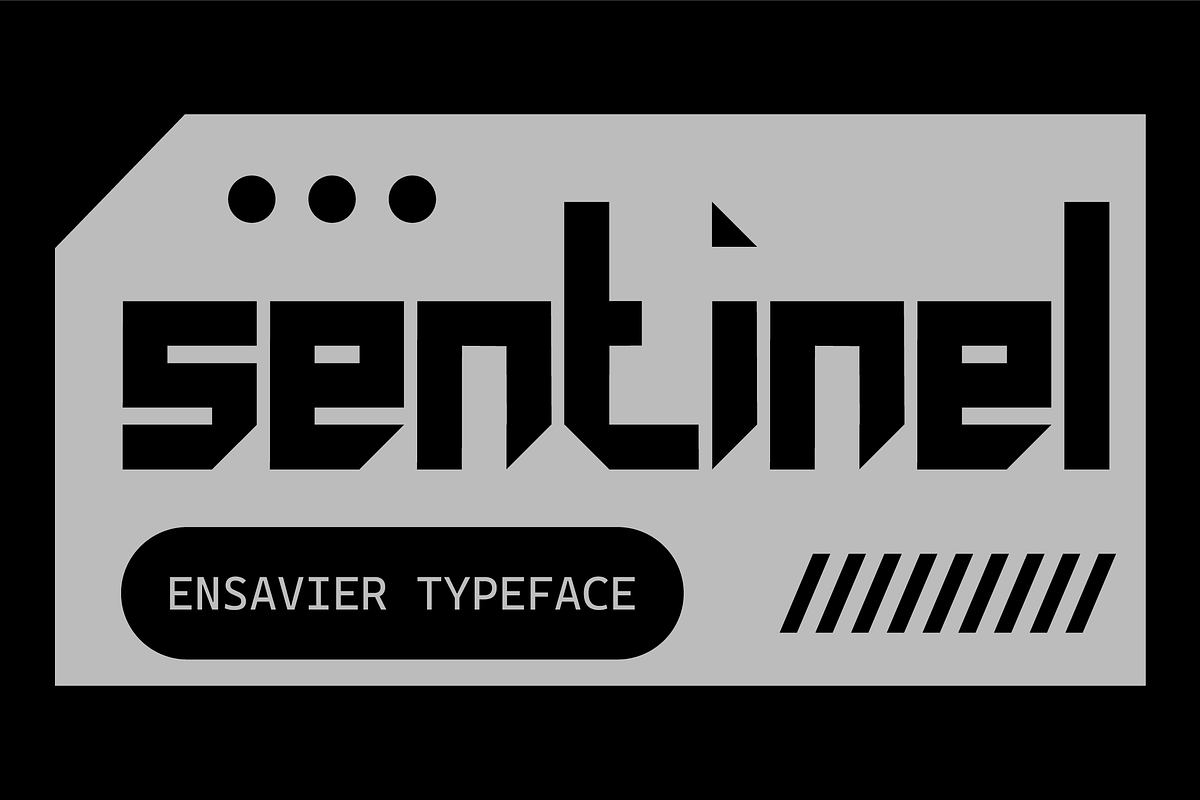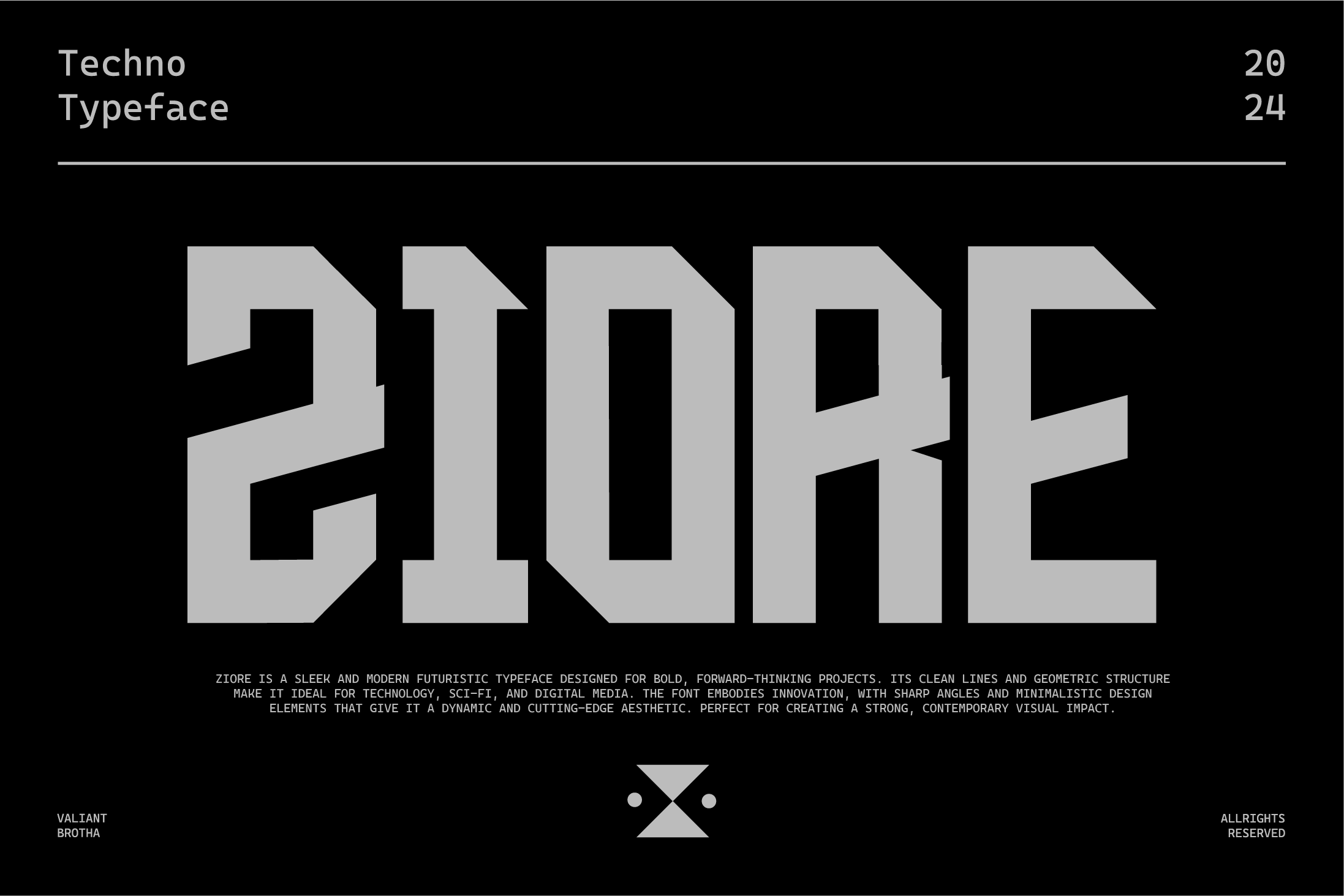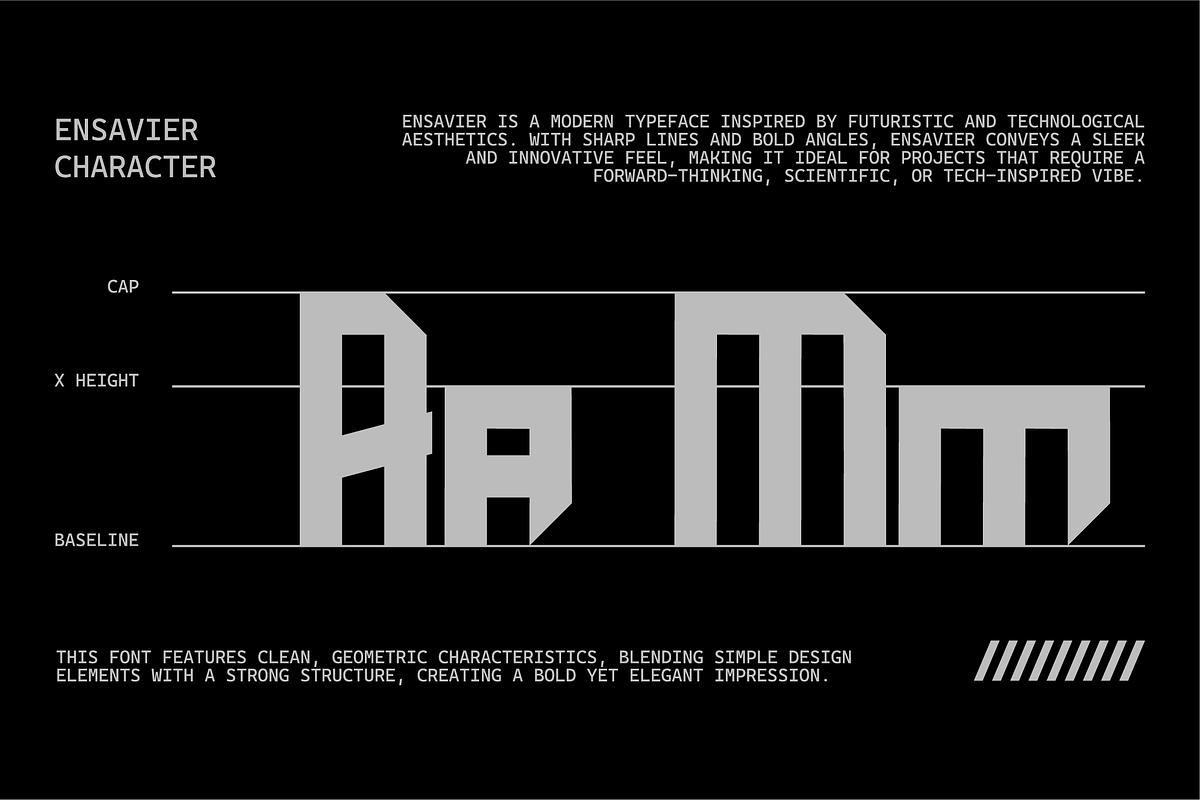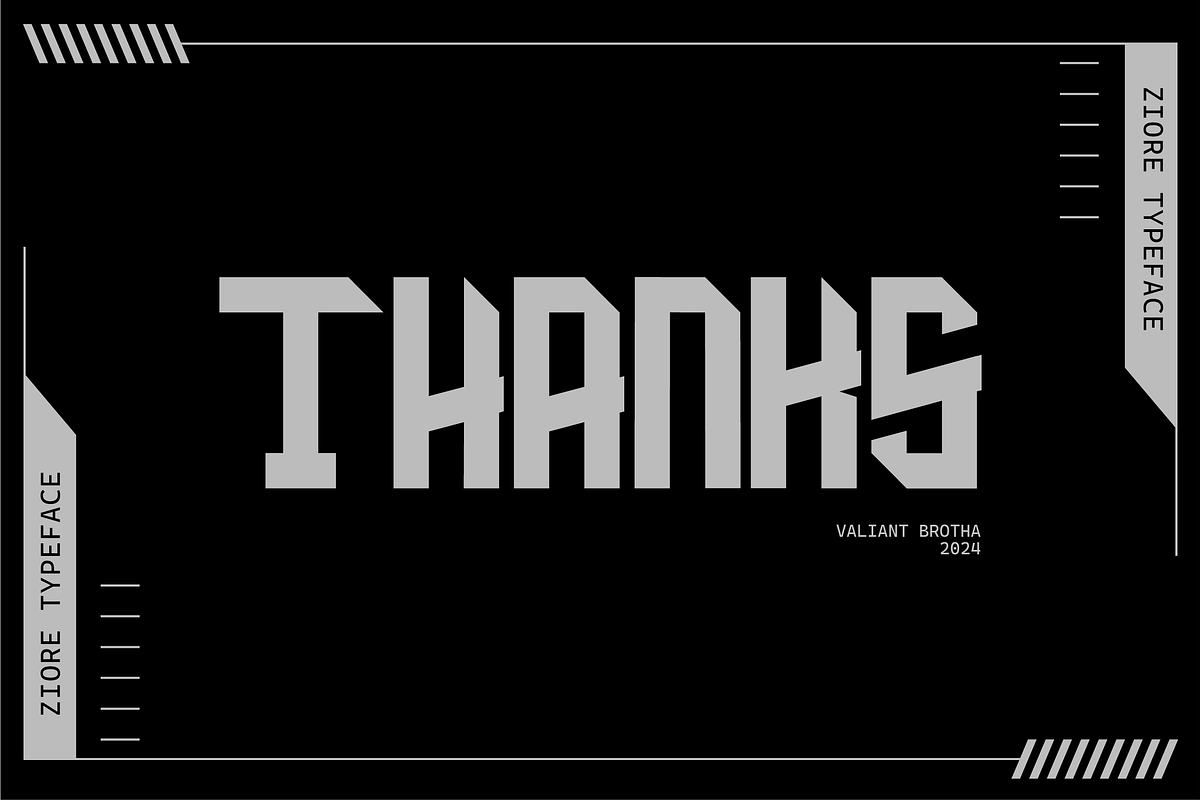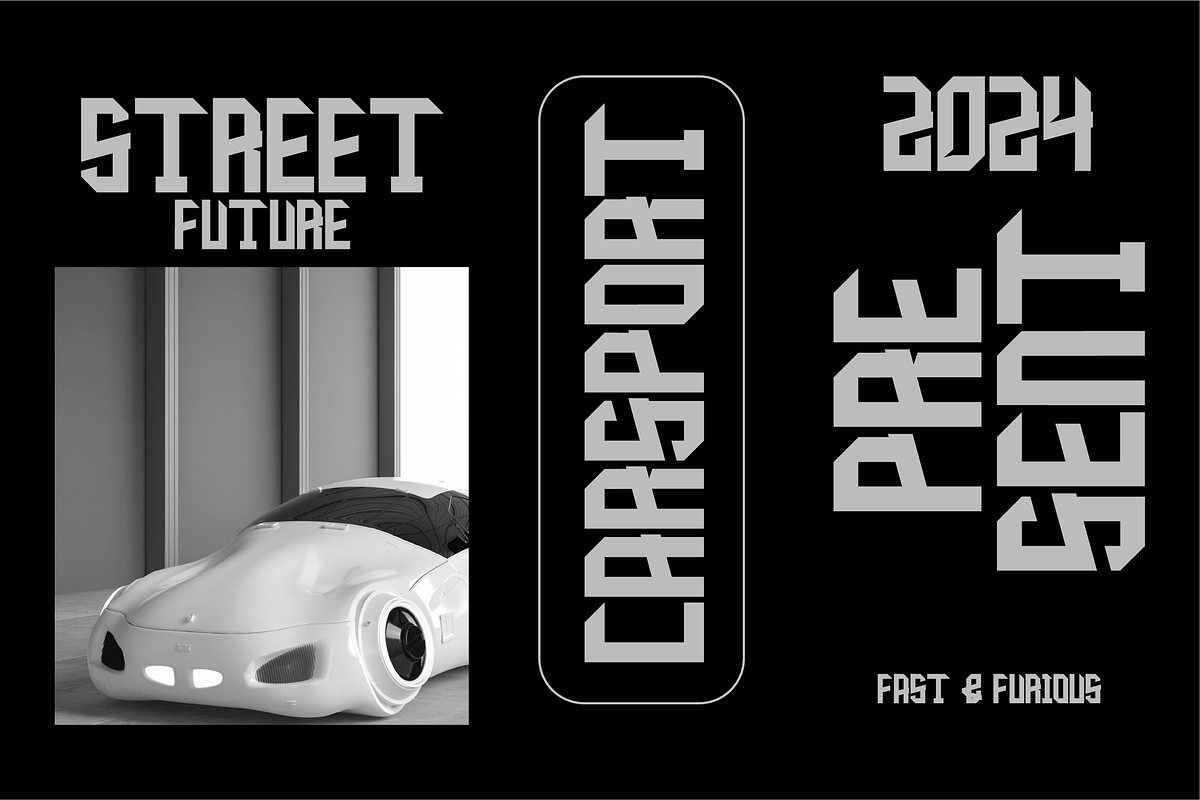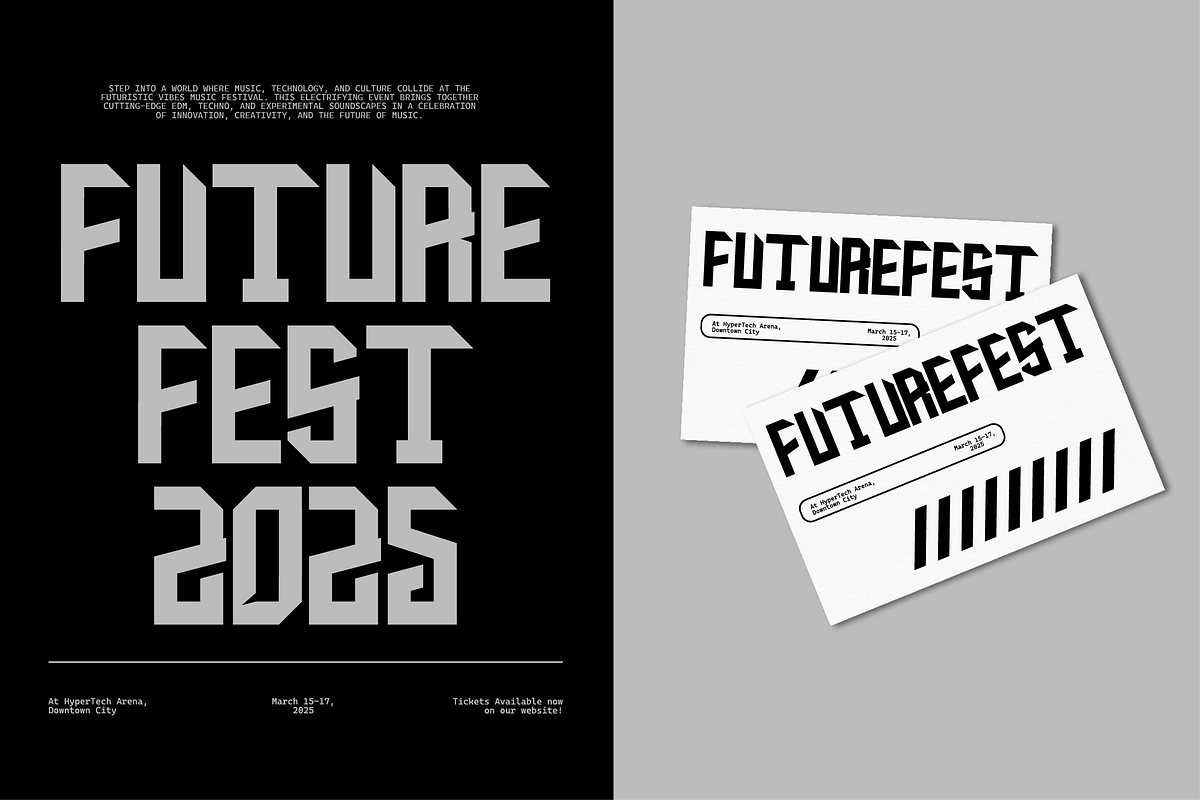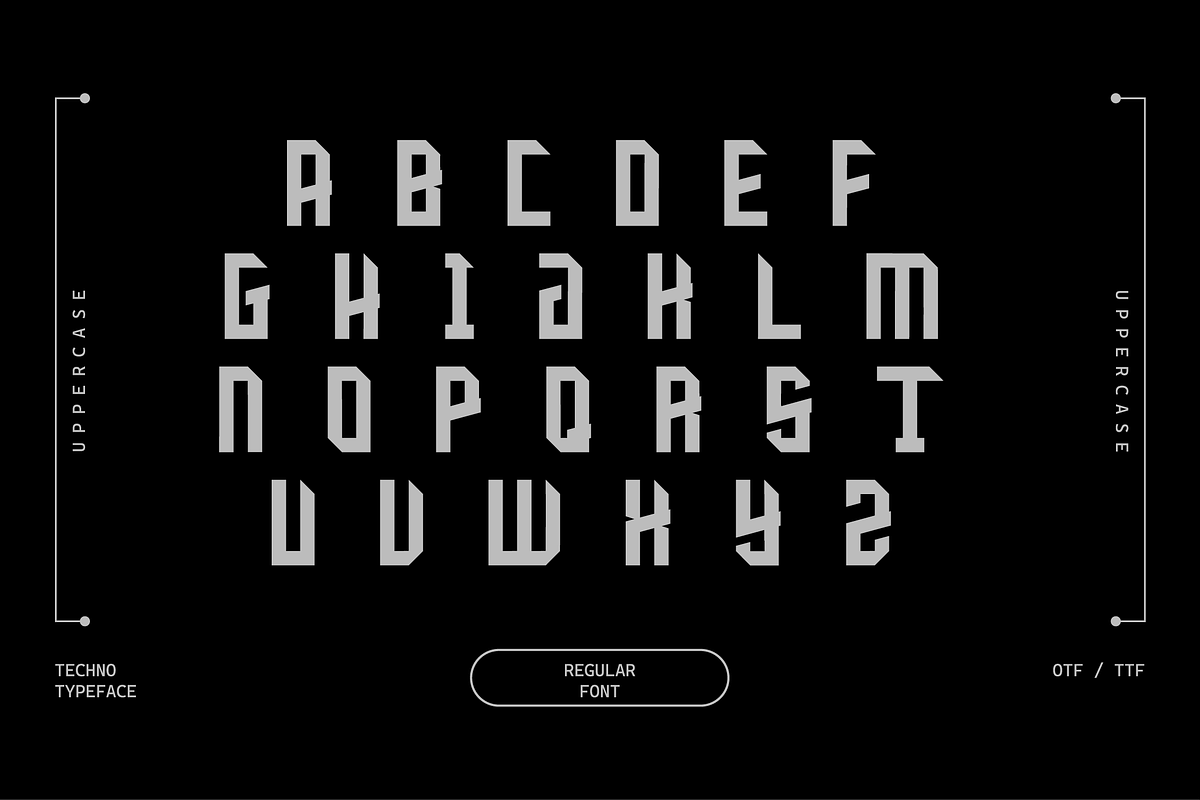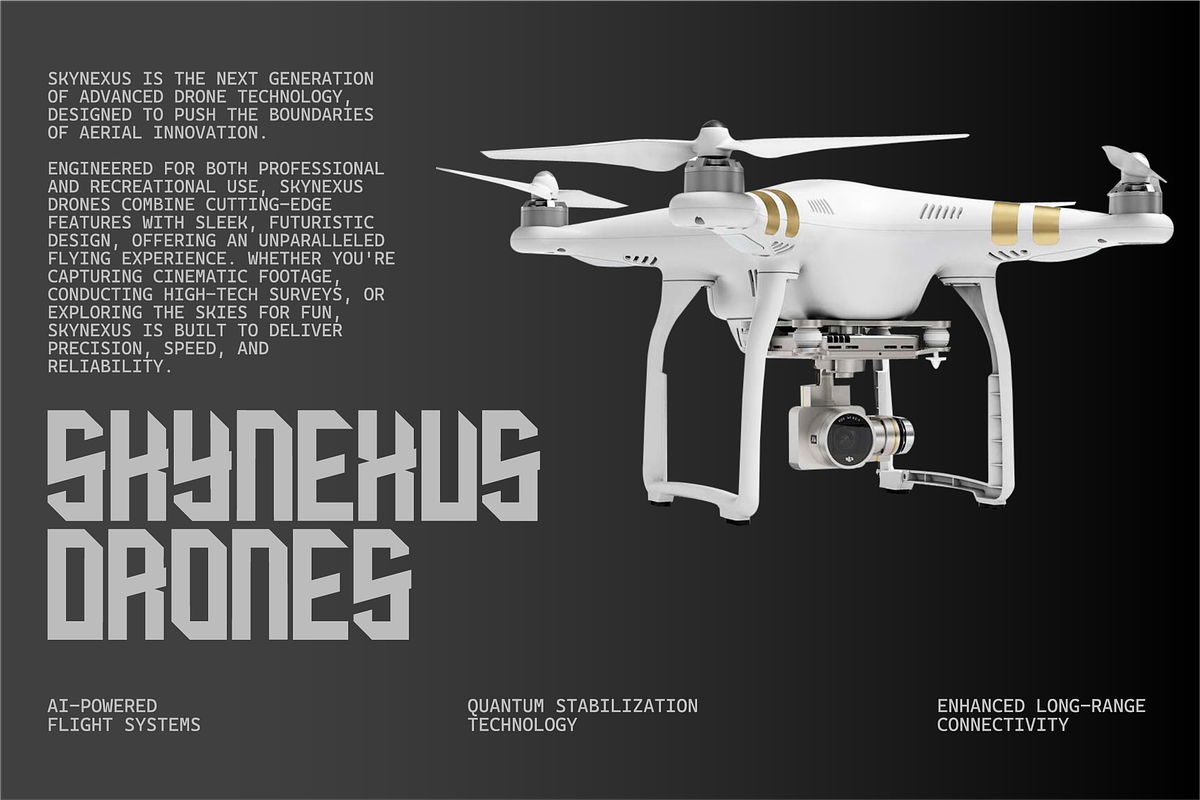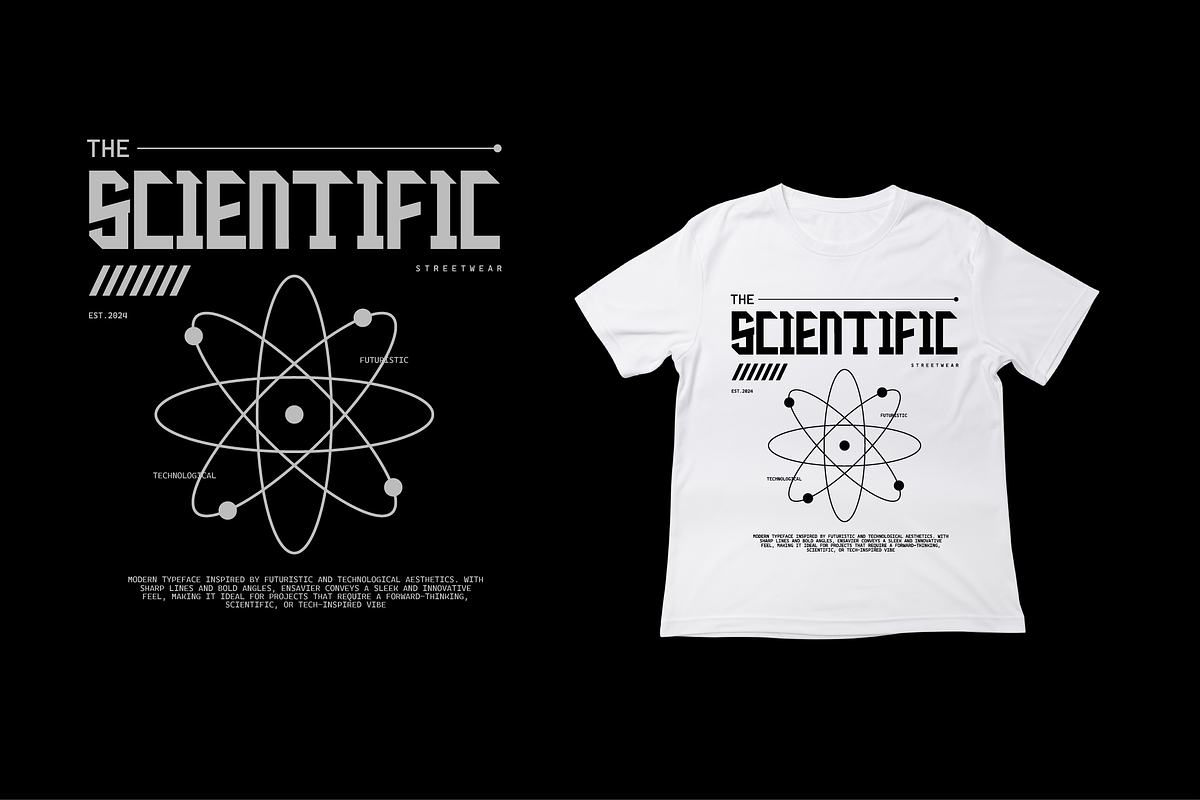
VB Ziore - Futuristic Font
Ziore is a sleek and modern futuristic typeface designed for bold, forward-thinking projects. Its clean lines and geometric structure make it ideal for technology, sci-fi, and digital media.